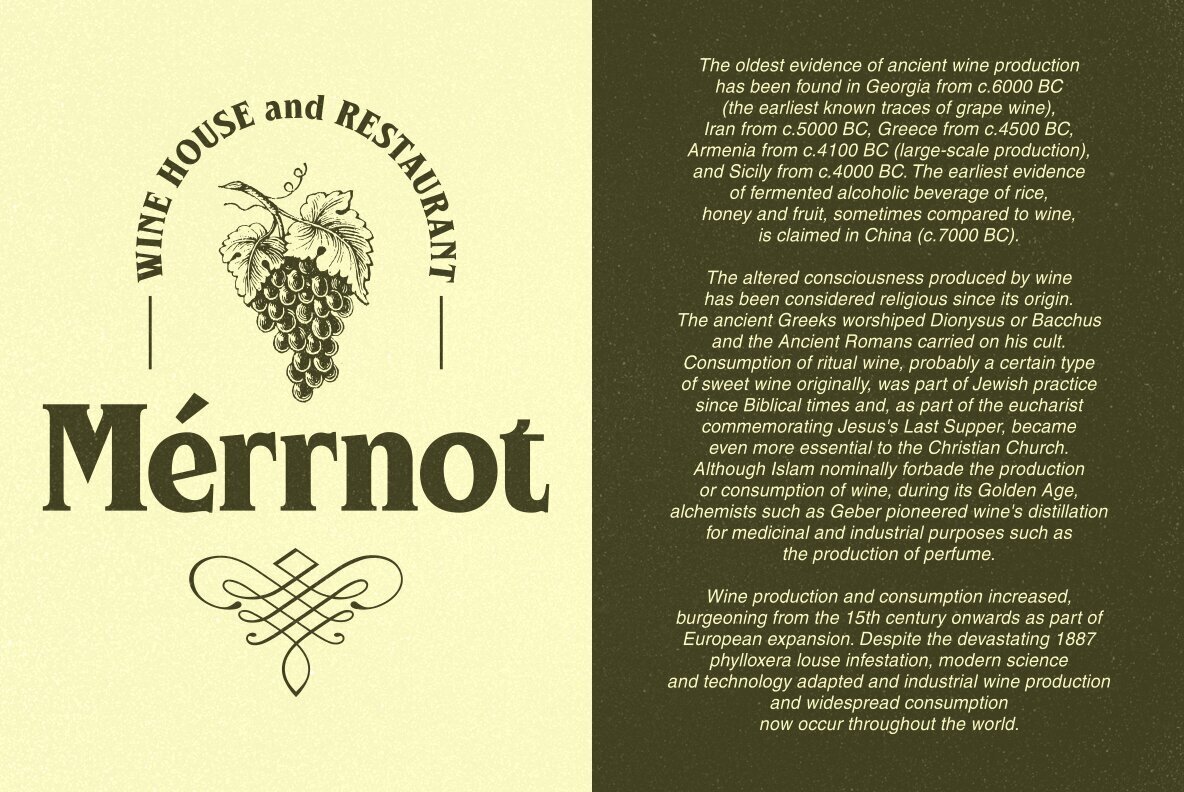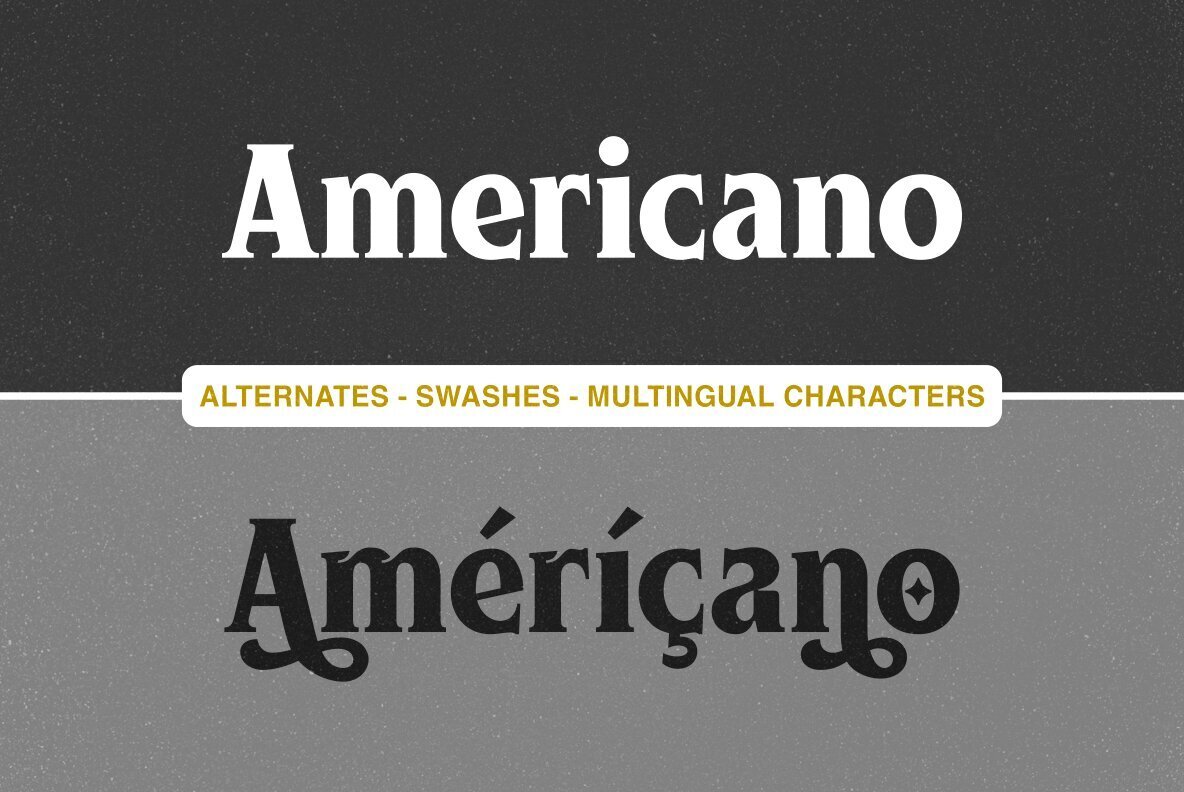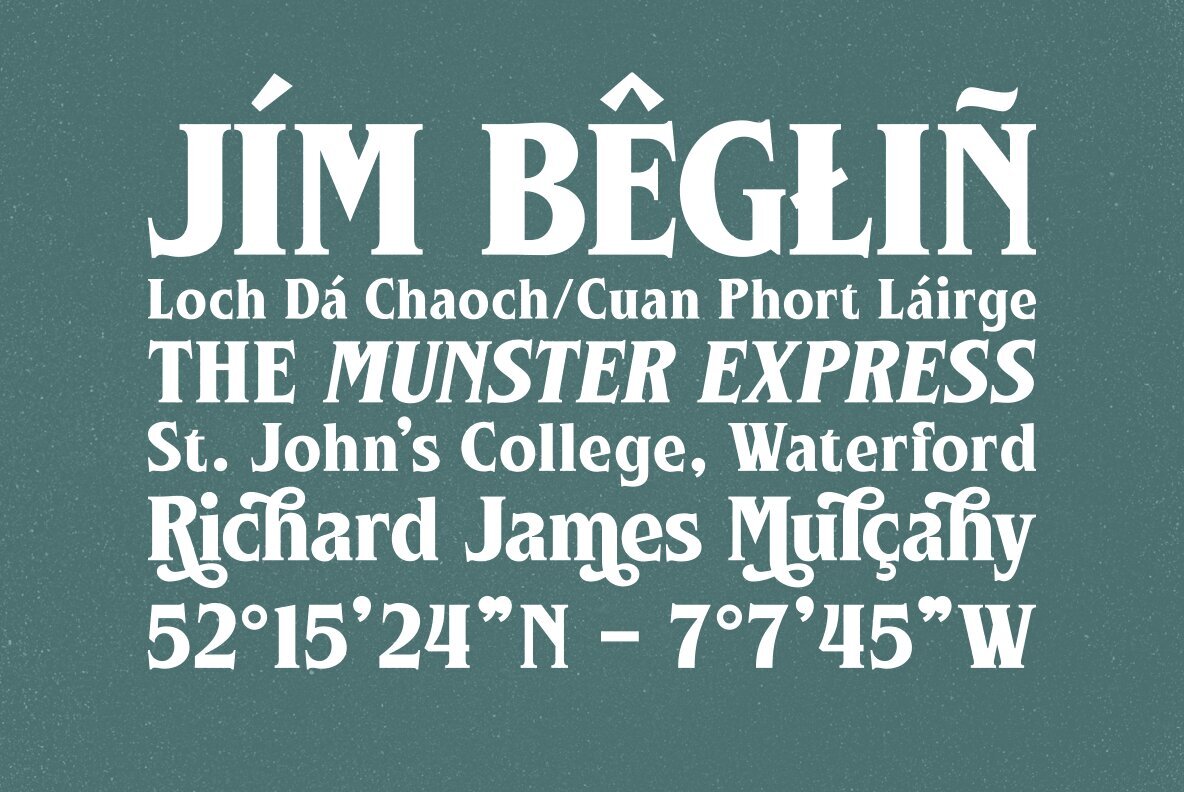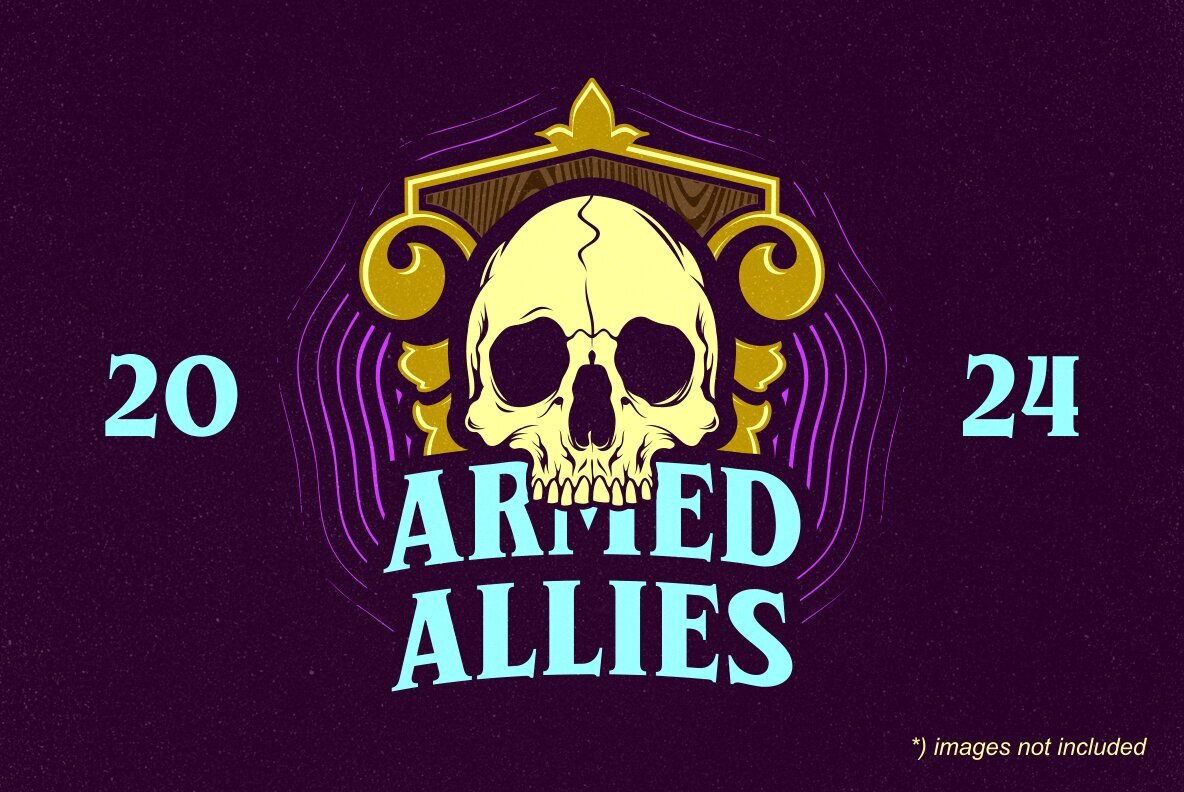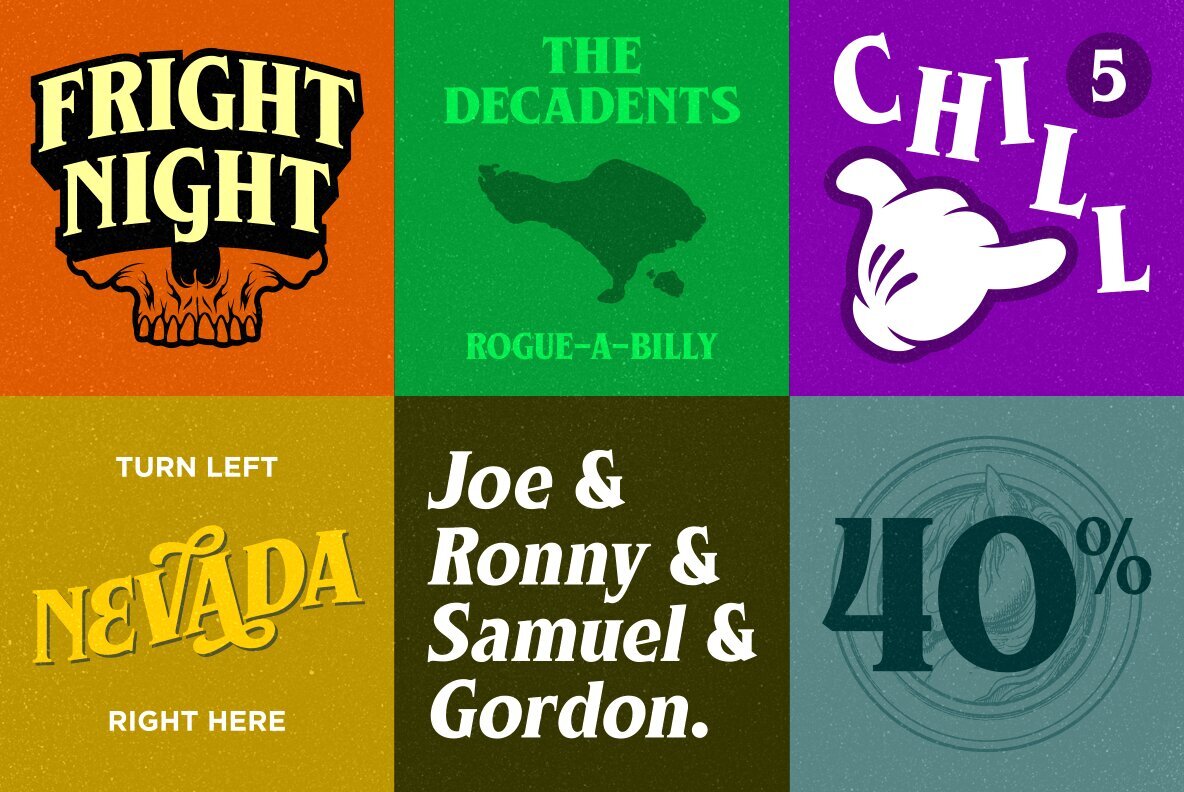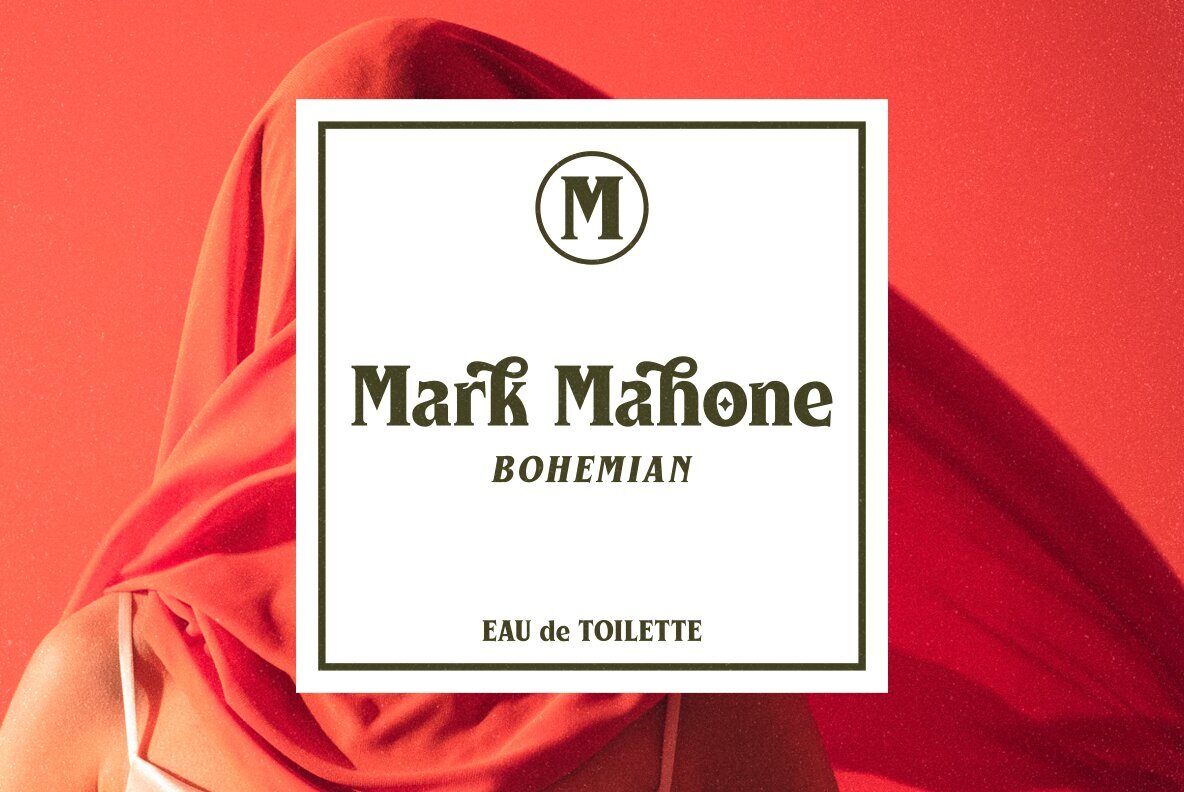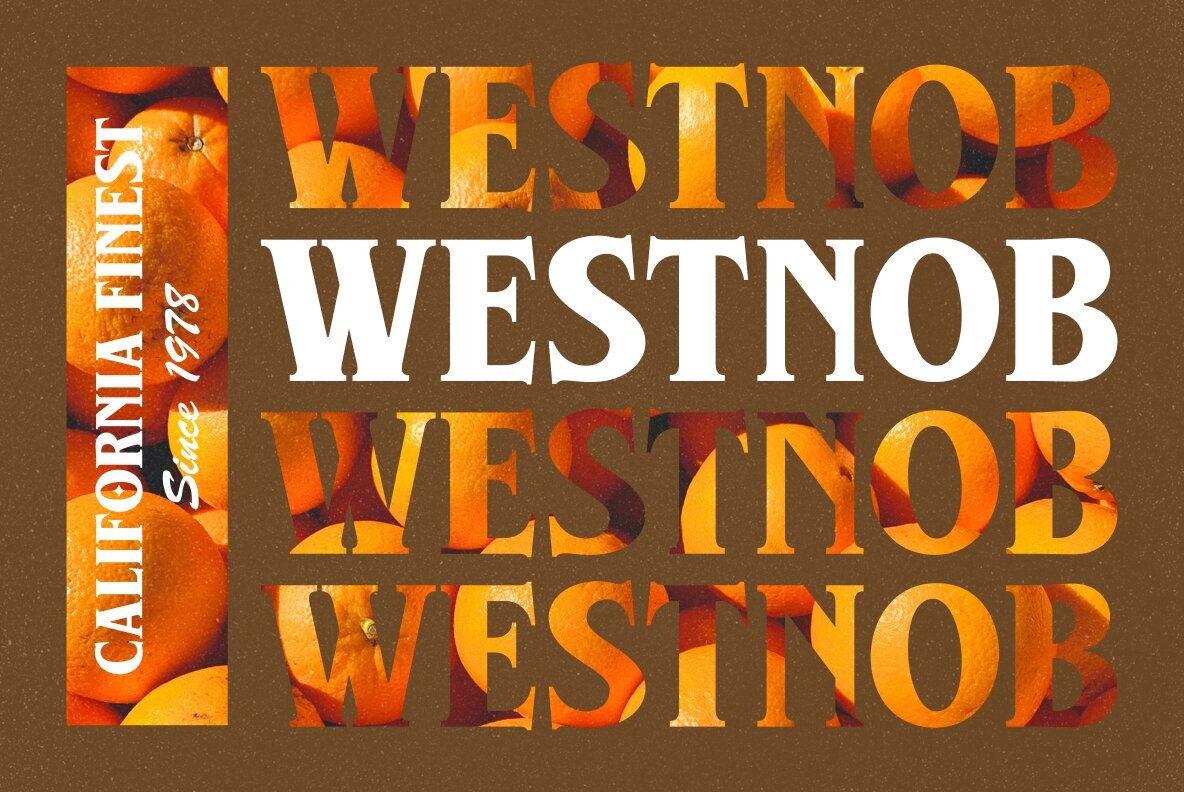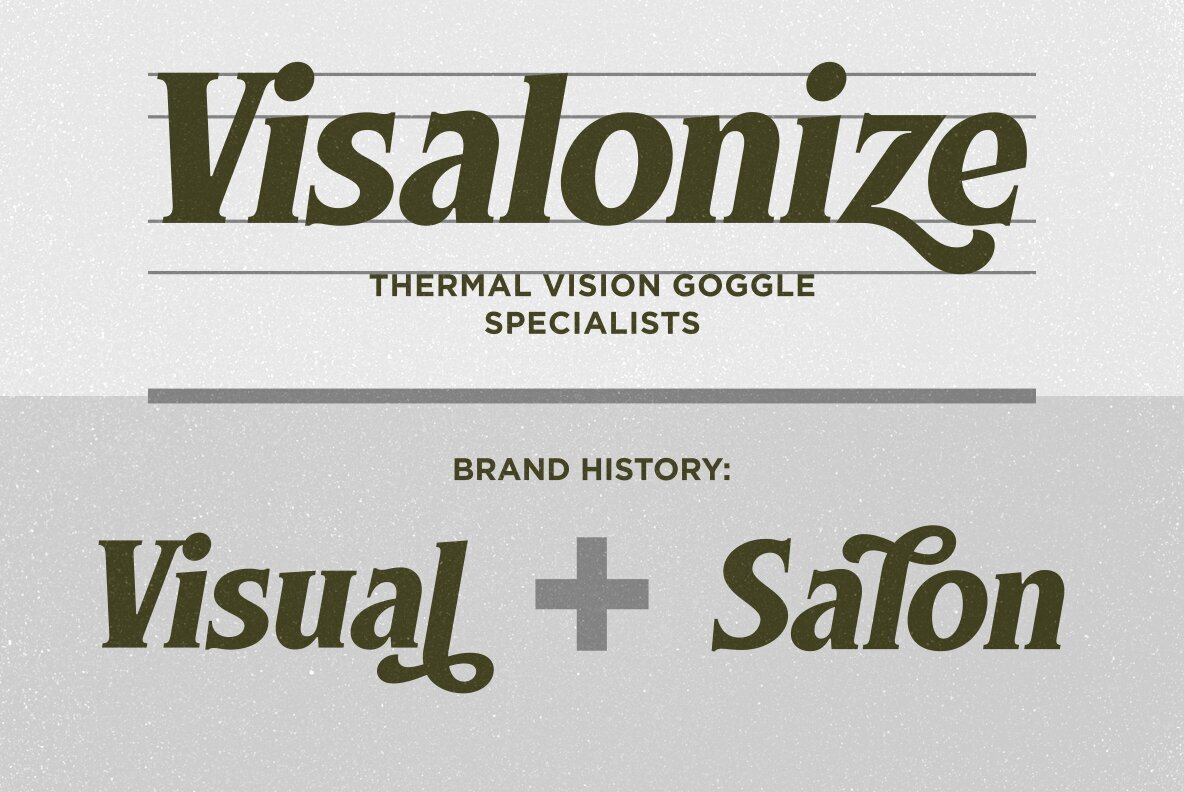
Westnob Font
Westnob Regular
Westnob Italic
Discover the charm of vintage-inspired letterforms with this display serif font. Carefully crafted with attention to detail, it features clean lines, sharp edges, and elegant curves. The font comes in a slanted/italic version and includes multilingual support, making it versatile for various projects. Packed with numerous alternates and ligatures, it offers ample customization options to fit your creative needs.
Perfect for bold headlines, sports or e-sports logos, and impactful book or movie titles, this font also shines in packaging, label design, and poster art. Its classic appeal adds a sophisticated touch to quotes and design statements, allowing creative professionals to produce distinctive and memorable visuals.